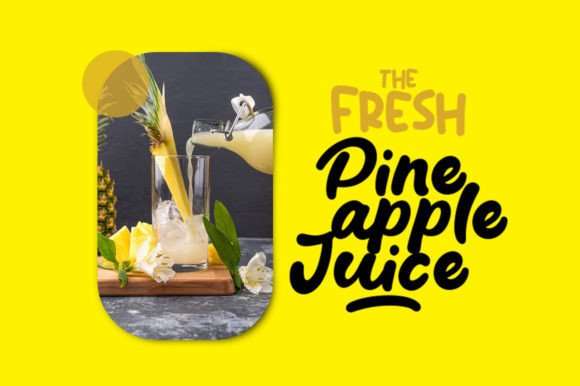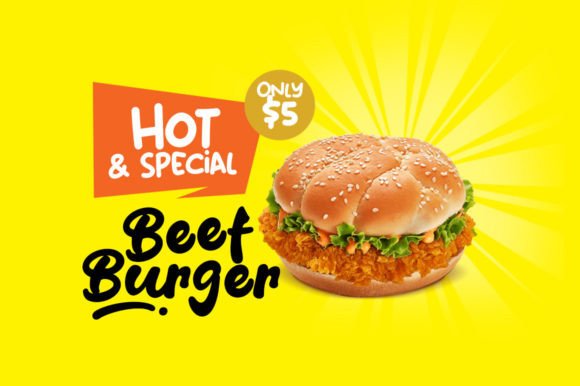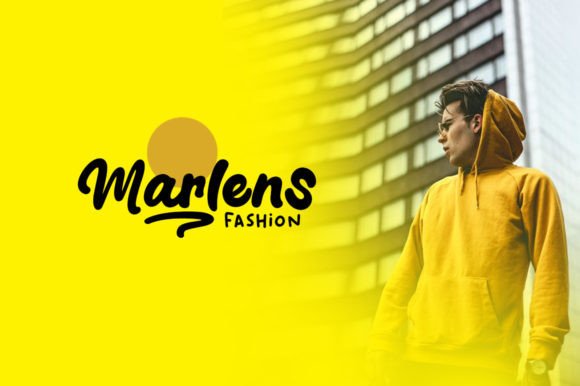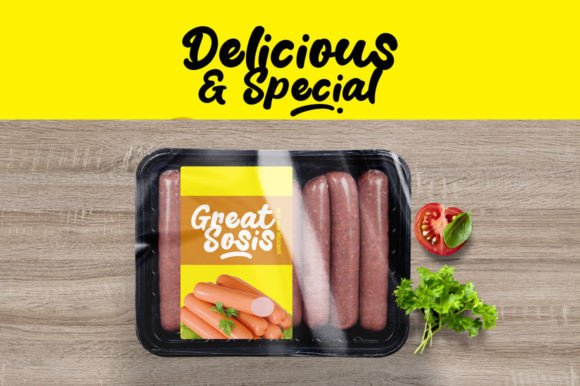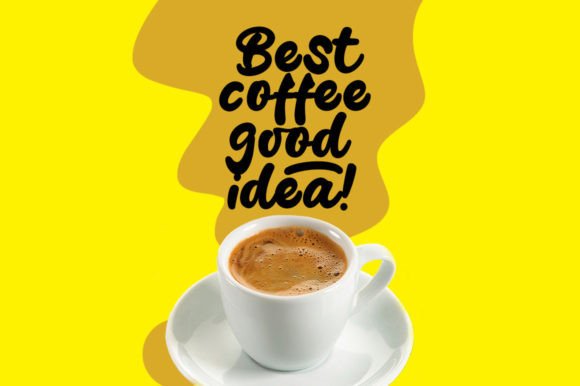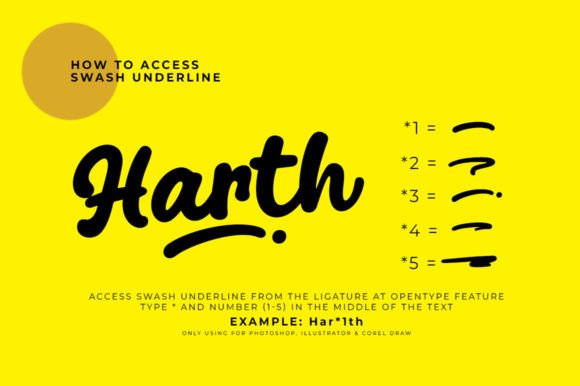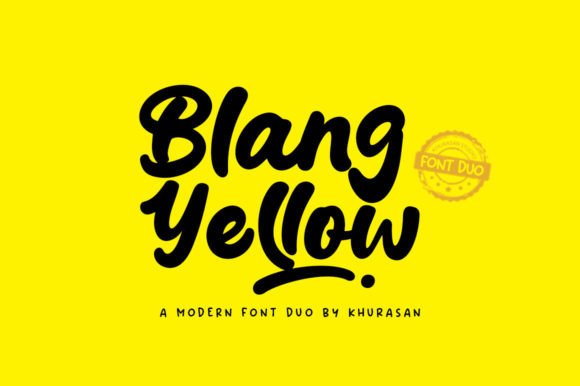
Introducing Blang Yellow Duo Font: Elevate Your Designs with a Fun Handwritten Style
Are you on the hunt for a font that can instantly add a touch of fun and personality to your designs? Look no further than the Blang Yellow Duo Font! This exciting font duo combines a script and display font, making it perfect for a wide range of creative projects, from posters and logos to magazines, book covers, banners, and beyond.
What Makes Blang Yellow Duo Font So Special?
The Blang Yellow Duo Font is a versatile typeface that offers the best of both worlds. The script font is elegant and flowing, ideal for creating beautiful headings, titles, and quotes, while the display font is bold and eye-catching, perfect for grabbing attention and making a statement.
One of the standout features of the Blang Yellow Duo Font is its handwritten style. This gives your designs a personal, human touch that’s sure to resonate with your audience. Whether you’re creating branding materials, marketing collateral, or simply want to add some personality to your digital content, this font duo is an excellent choice.
The Blang Yellow Duo Font is a dream come true for designers and crafters who want to add a pop of fun and color to their work. With its unique and playful style, this font duo is sure to inspire creativity and help you stand out from the crowd.
- Magazines and newspapers
- Book covers and titles
- Banners and signage
Key Features of Blang Yellow Duo Font
So, what can you expect from the Blang Yellow Duo Font? Here are some of its key features:
- Handwritten script and display fonts
- Fun and playful style
- Perfect for posters, logos, magazines, book covers, banners, and more
- Adaptable to a wide range of projects and designs
In conclusion, the Blang Yellow Duo Font is an exciting and versatile typeface that’s perfect for designers and crafters who want to add a touch of fun and personality to their work. With its handwritten style, adaptability, and ease of use, this font duo is sure to become a favorite in your design arsenal.